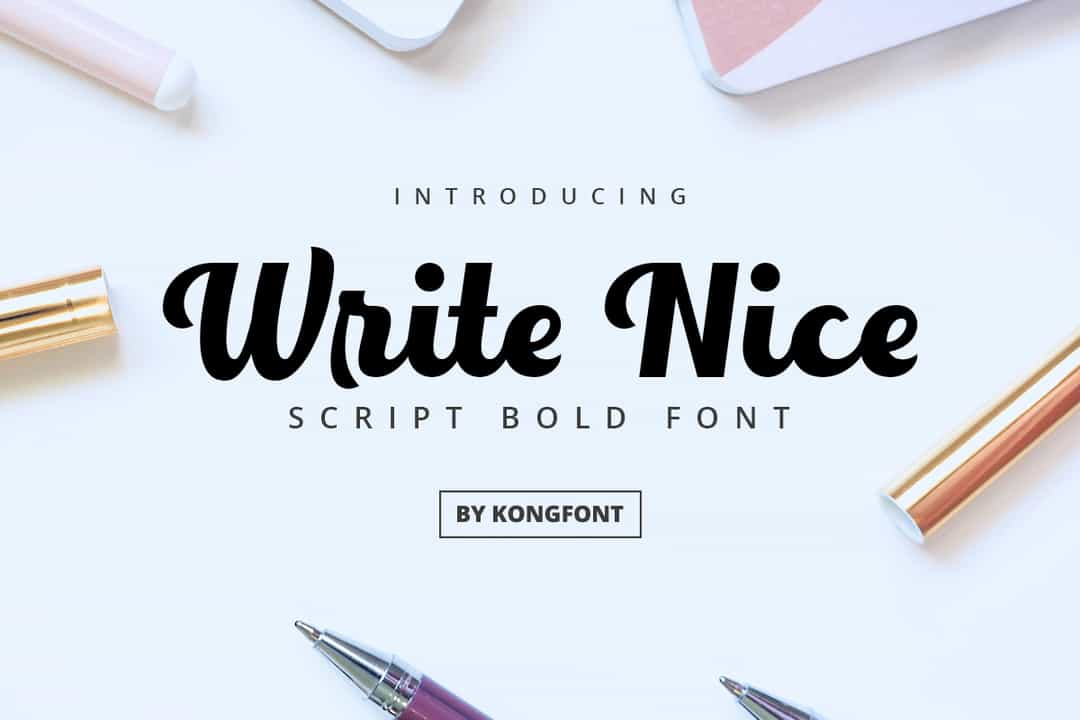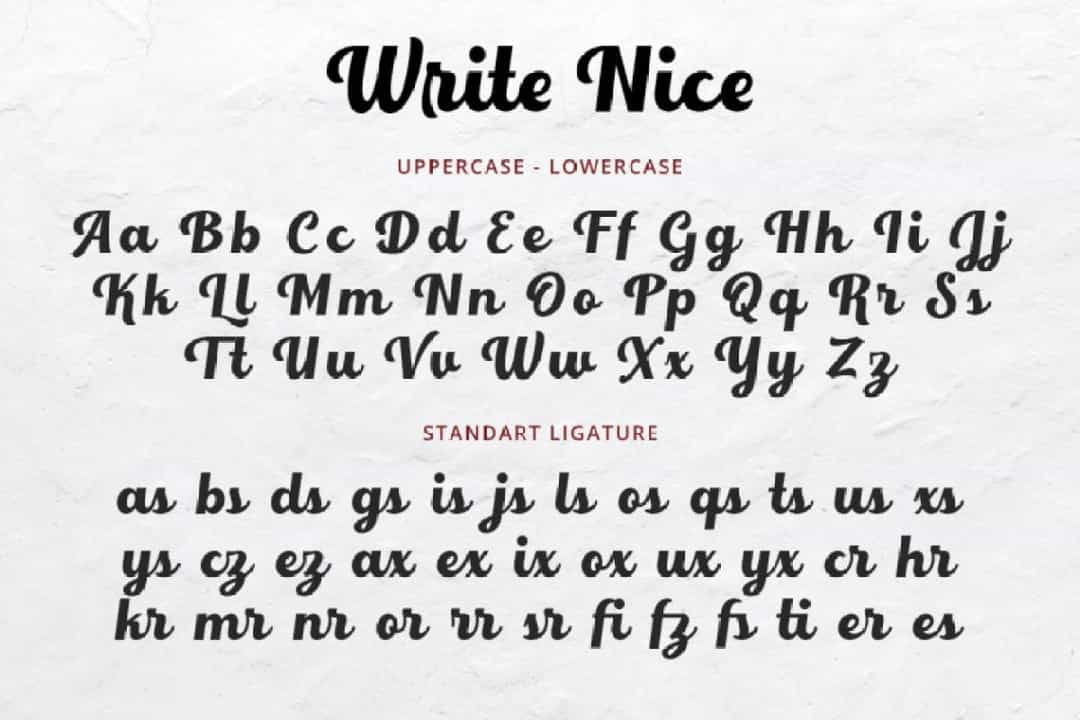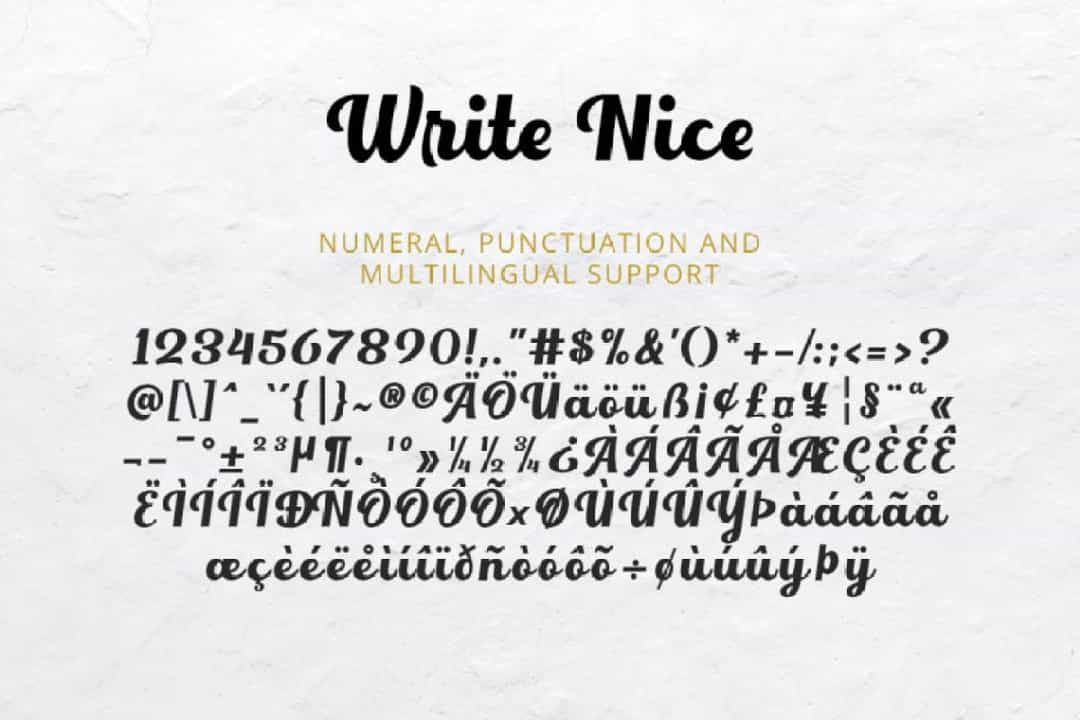
Discover Write Nice Font, part of the Script collection—a versatile and unique font perfect for adding a personal touch to your projects. Download it for free and enjoy crafting designs with style, from invitations to social media posts. This font is available exclusively for personal use, giving you the freedom to create without limits. Unlock your creativity with Write Nice Font today!
Write Nice Bold script font is perfect for designing invitations for weddings, birthdays and other special events. Our new Write Nice Bold font contains numbers and letters suitable for use in logotype design projects as well as branding logotypes, digital lettering arts projects such as T-Shirt, Apparel design or Poster, Magazine designs for advertising designs as well as T-shirt/Apparel printing applications – great for many branding initiatives!